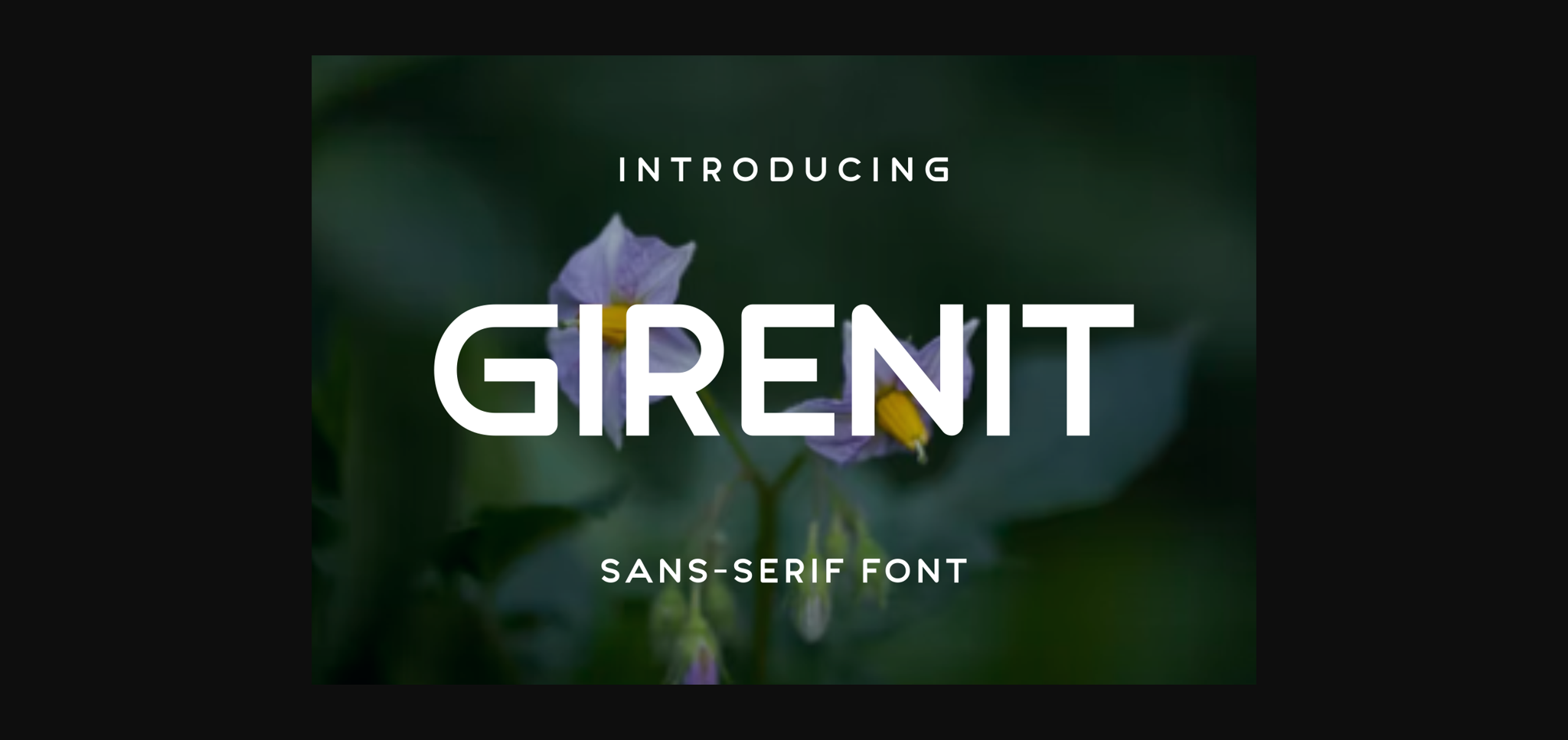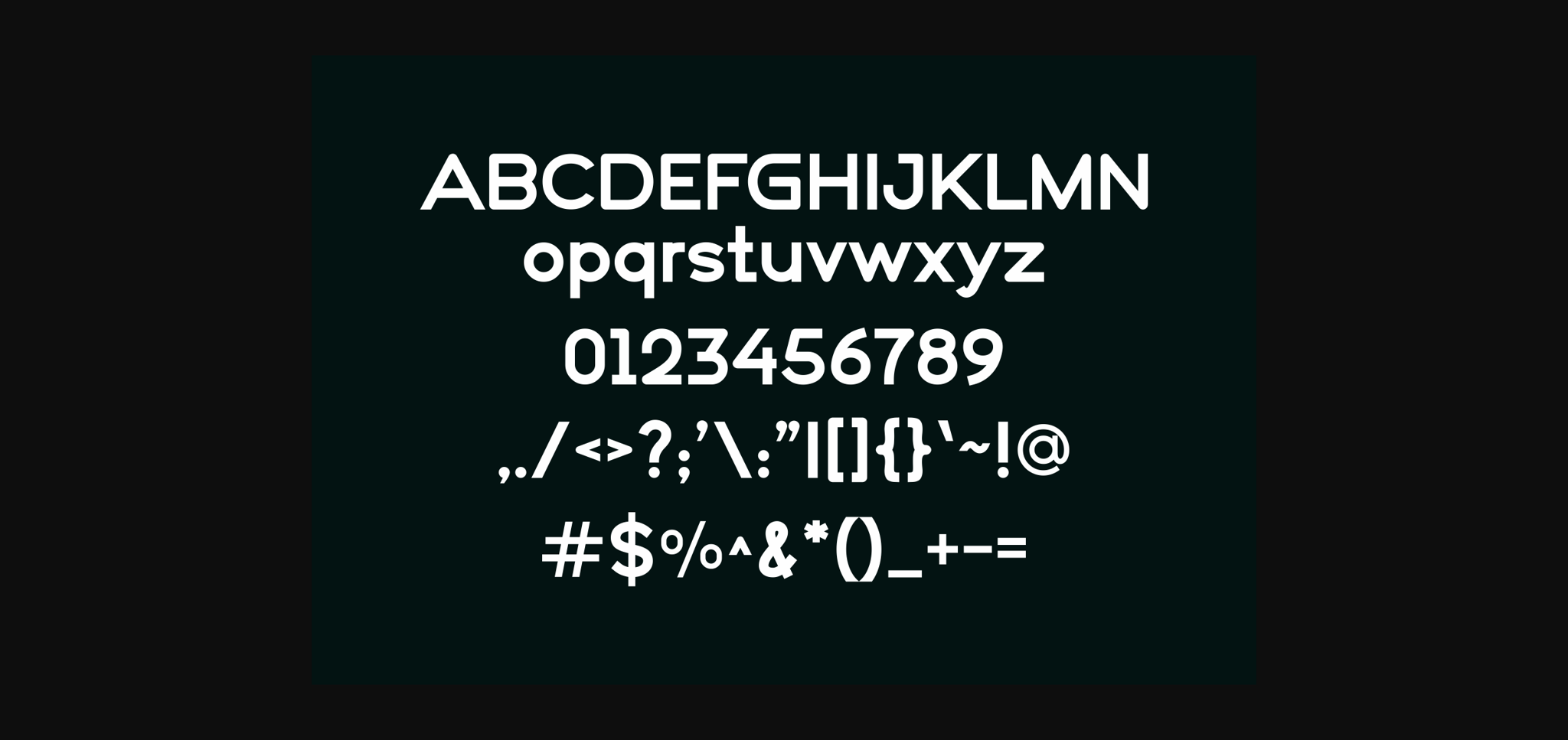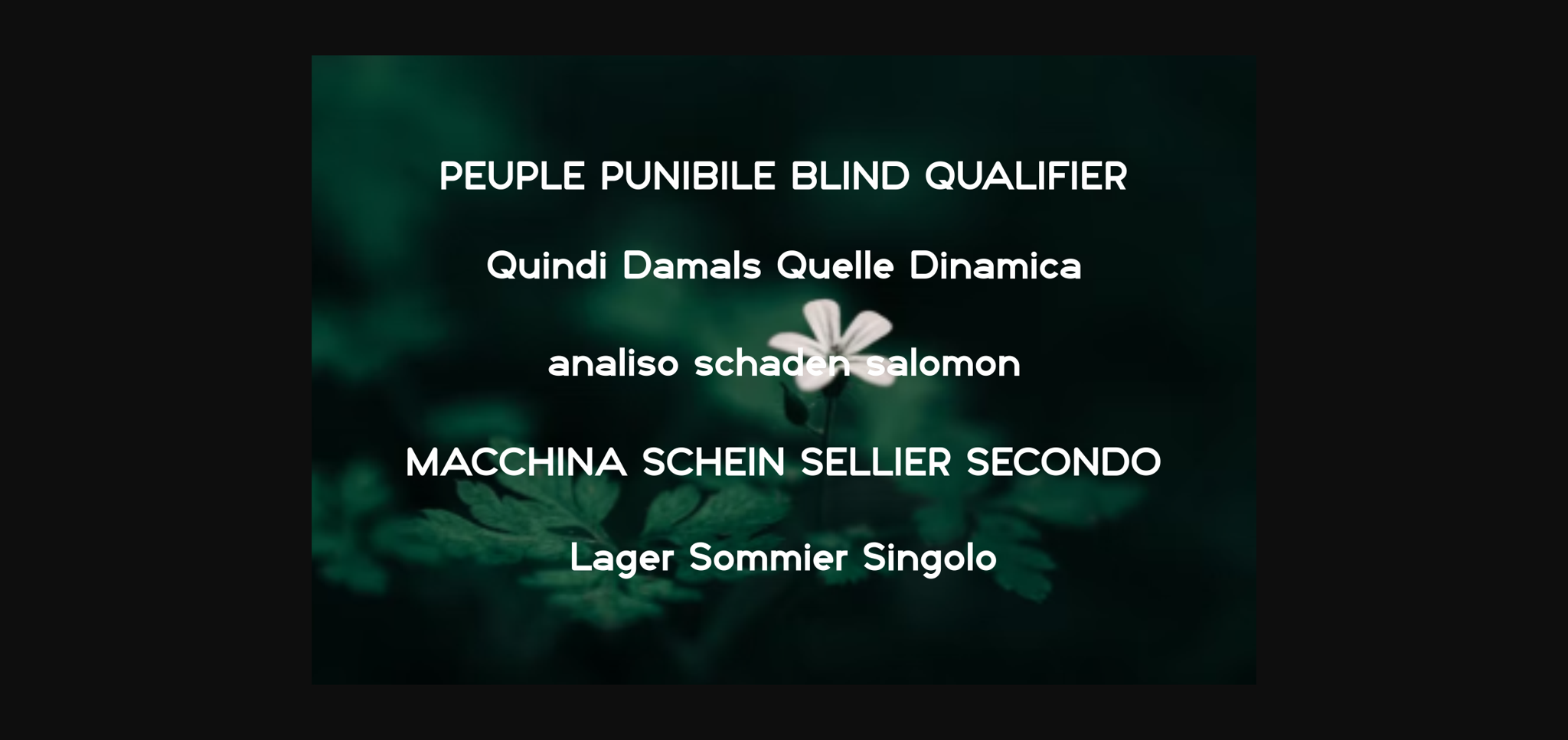
Girenit is a cool and unique sans serif font. No matter the topic, this font will be an incredible asset to your fonts’ library, as it has the potential to elevate any creation.